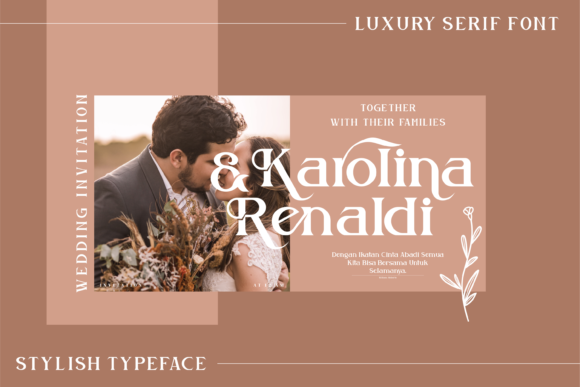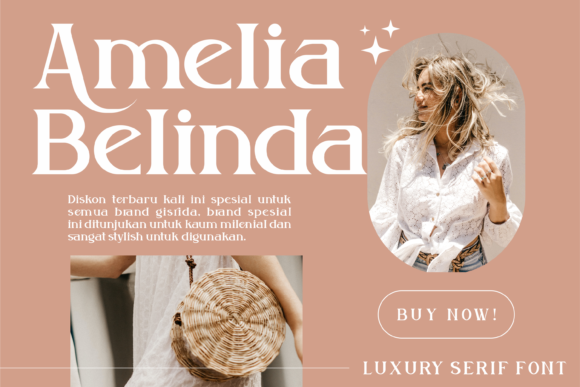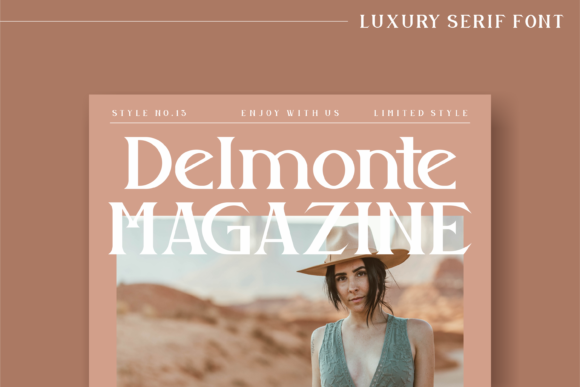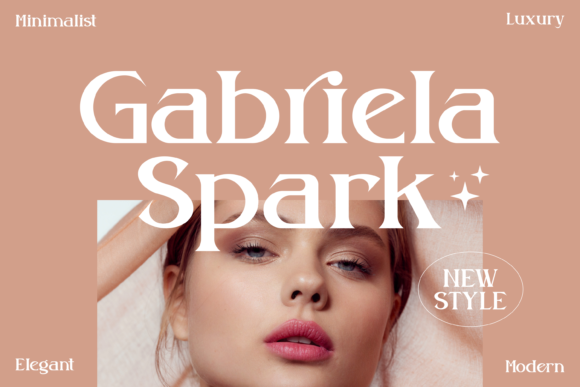
Introduction to Gabriela Spark Font
Gabriela Spark is a bold and stylish serif font.
This font is PUA encoded which means you can access all of the glyphs and swashes with ease Fall in love with its incredibly versatile style and use it to create spectacular designs.
Key Features of Gabriela Spark Font